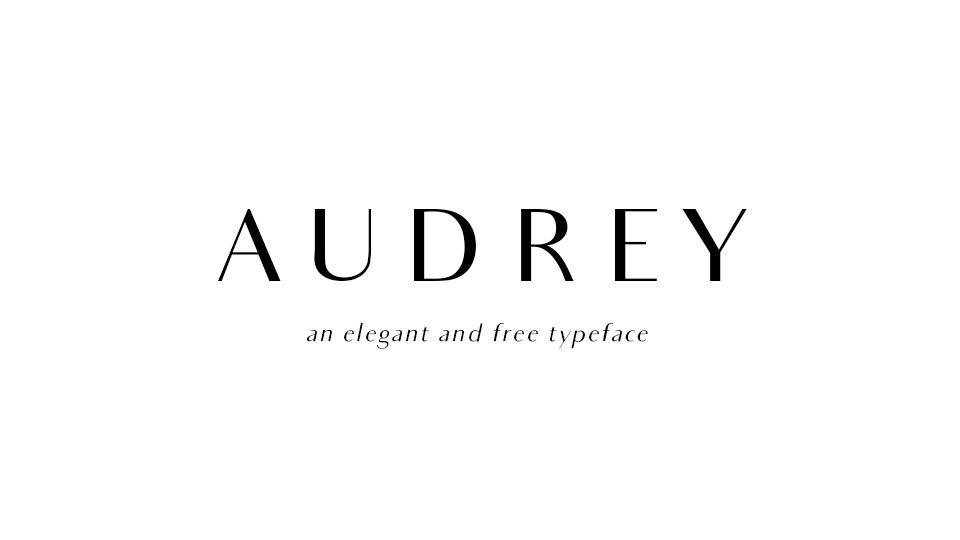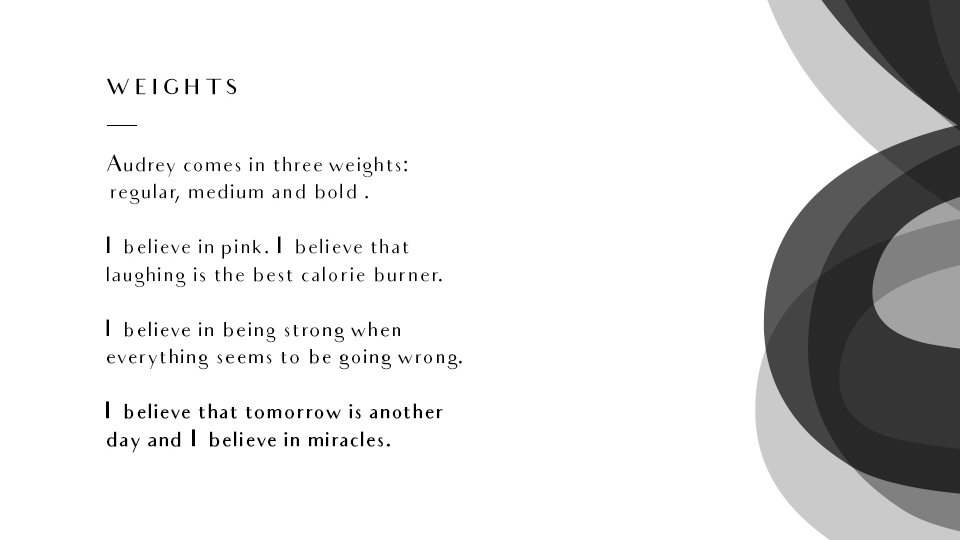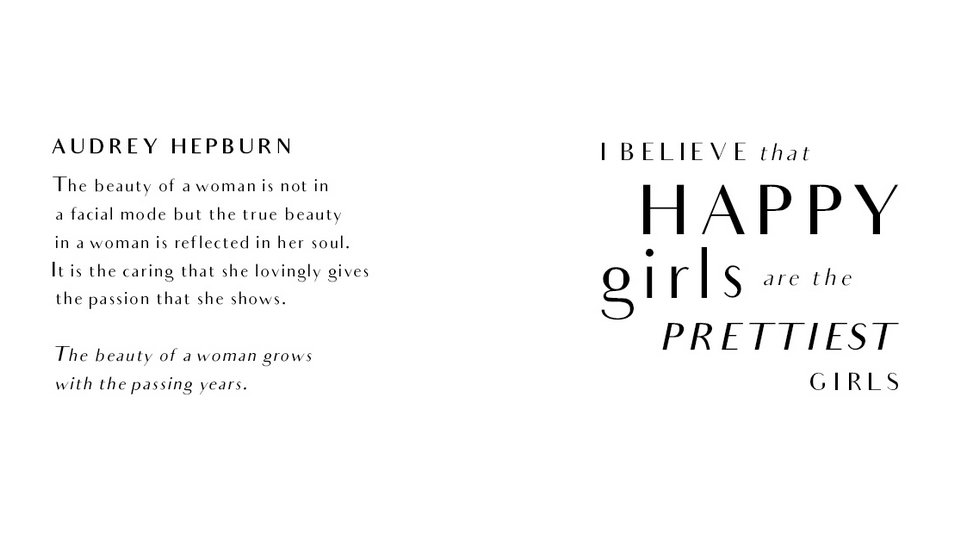
Audrey is an elegant and classy font family. It comes with three weights: Regular, Medium, Bold and two variations: Regular and Oblique.
Audrey font perfectly looks for logotypes and branding, wedding decoration, fashion magazines, apparel and everything with a feminine touch.